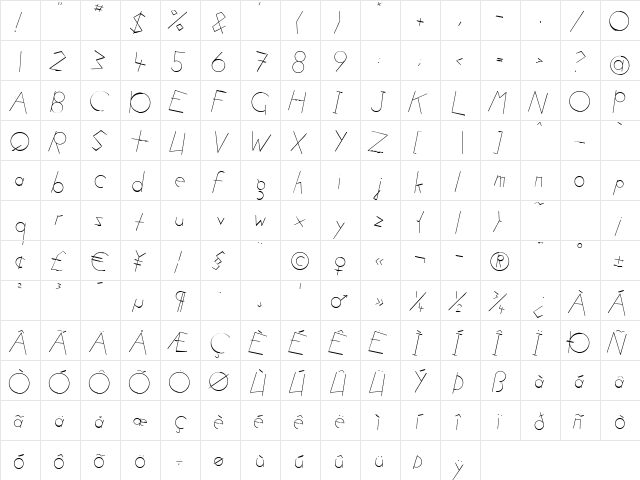
Atomic Pasta Italic
Design Context for Atomic Pasta Typeface
Atomic Pasta is a composed and adaptable typeface that performs quietly and consistently across a wide range of design contexts. The slanted form adds forward momentum and visual energy.